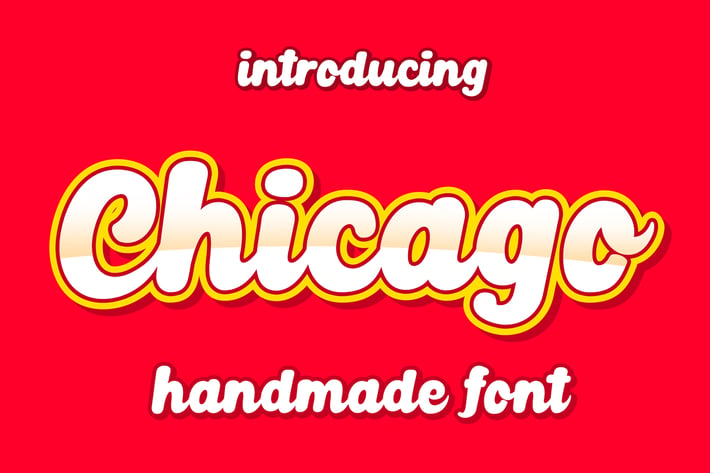
Chicago Font
Chicago Font is great for logo, poster, clothing, branding, party invitation, and many many other cool design projeects. Chicago comes with some ligatures and basic multilingual support, and outline font.